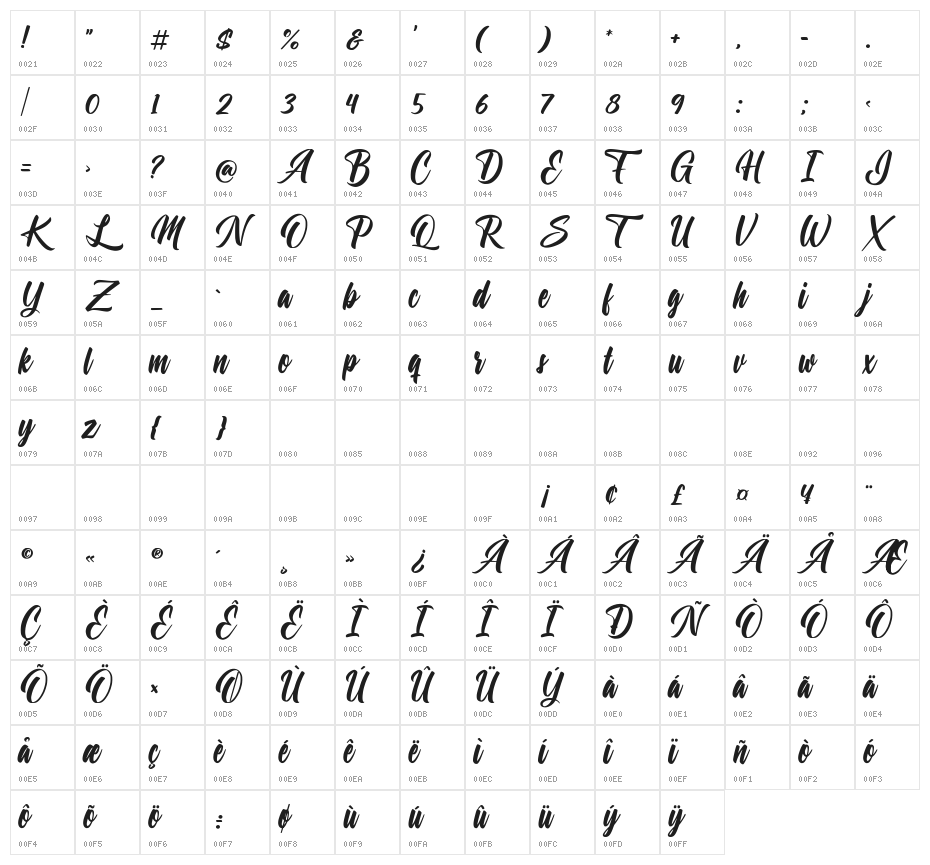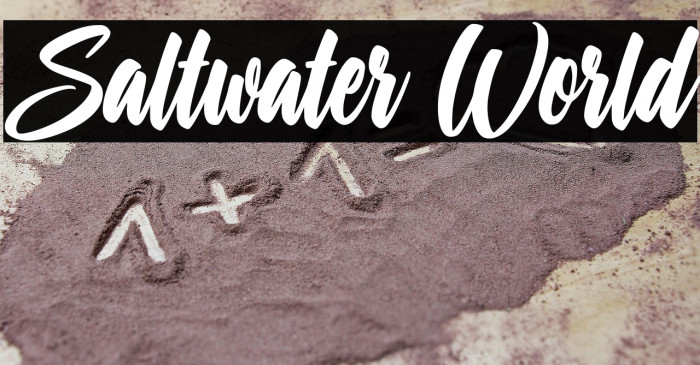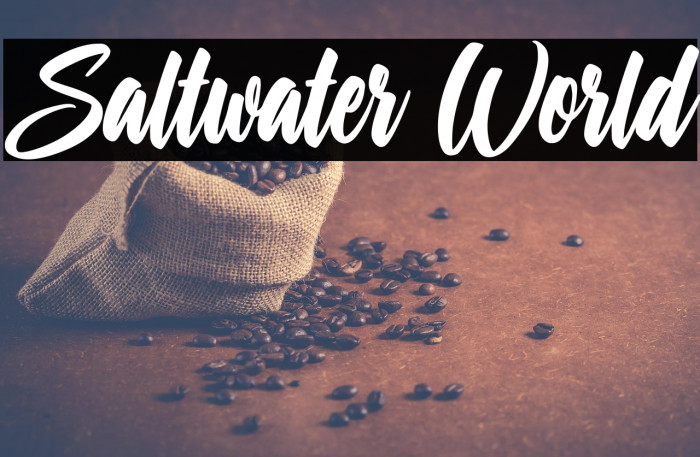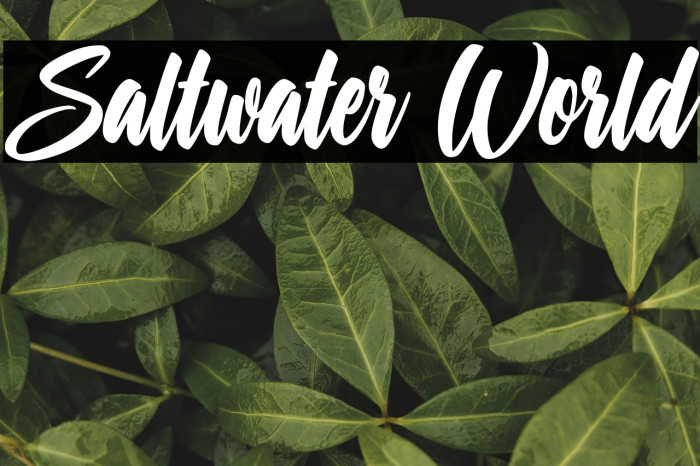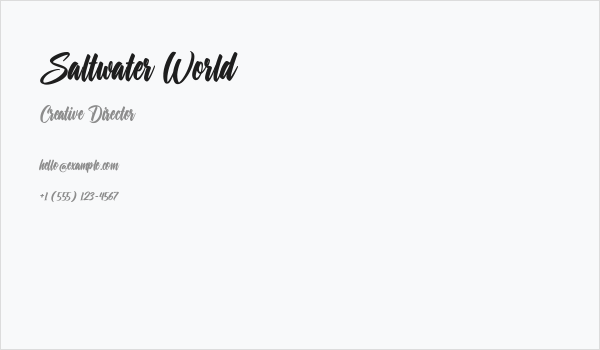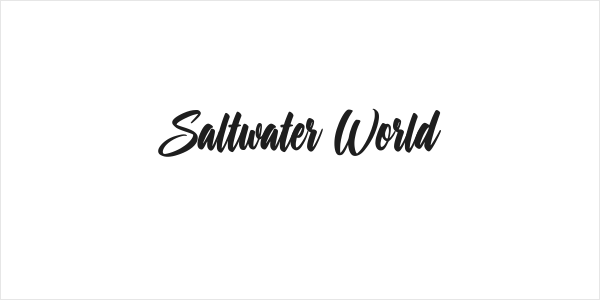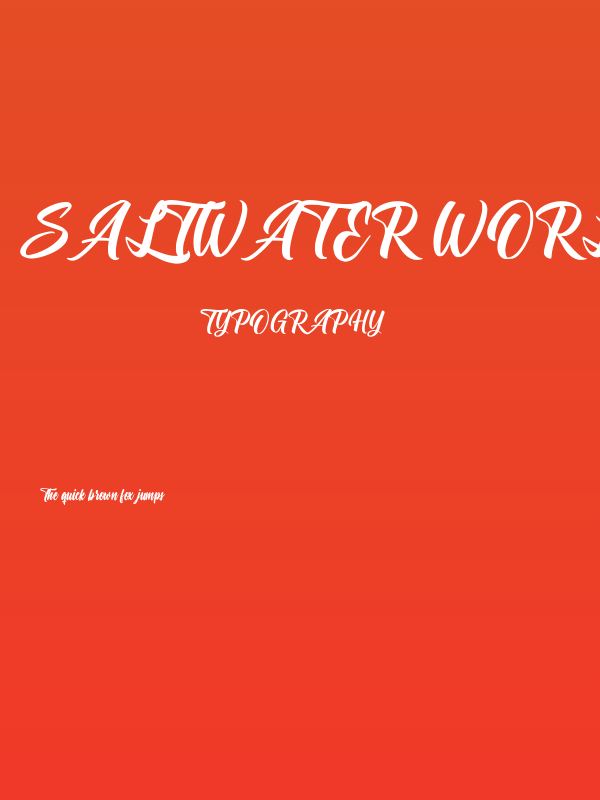
Saltwater World Font
Saltwater World Description
This font features a bold, flowing script style that exudes elegance and sophistication. The uppercase letters are characterized by their sweeping curves and dramatic flourishes, while the lowercase letters maintain a consistent, smooth flow. The numerals are bold and clear, matching the overall aesthetic of the font. Special characters are designed with the same attention to detail, ensuring a cohesive look across all glyphs. The font's high contrast between thick and thin strokes adds to its dynamic appearance, making it ideal for creating impactful designs.
Overall StyleElegant
Use CaseLogos, Headlines, Invitations
Proposed ProjectsIdeal for wedding invitations, branding, logo design, and elegant packaging.